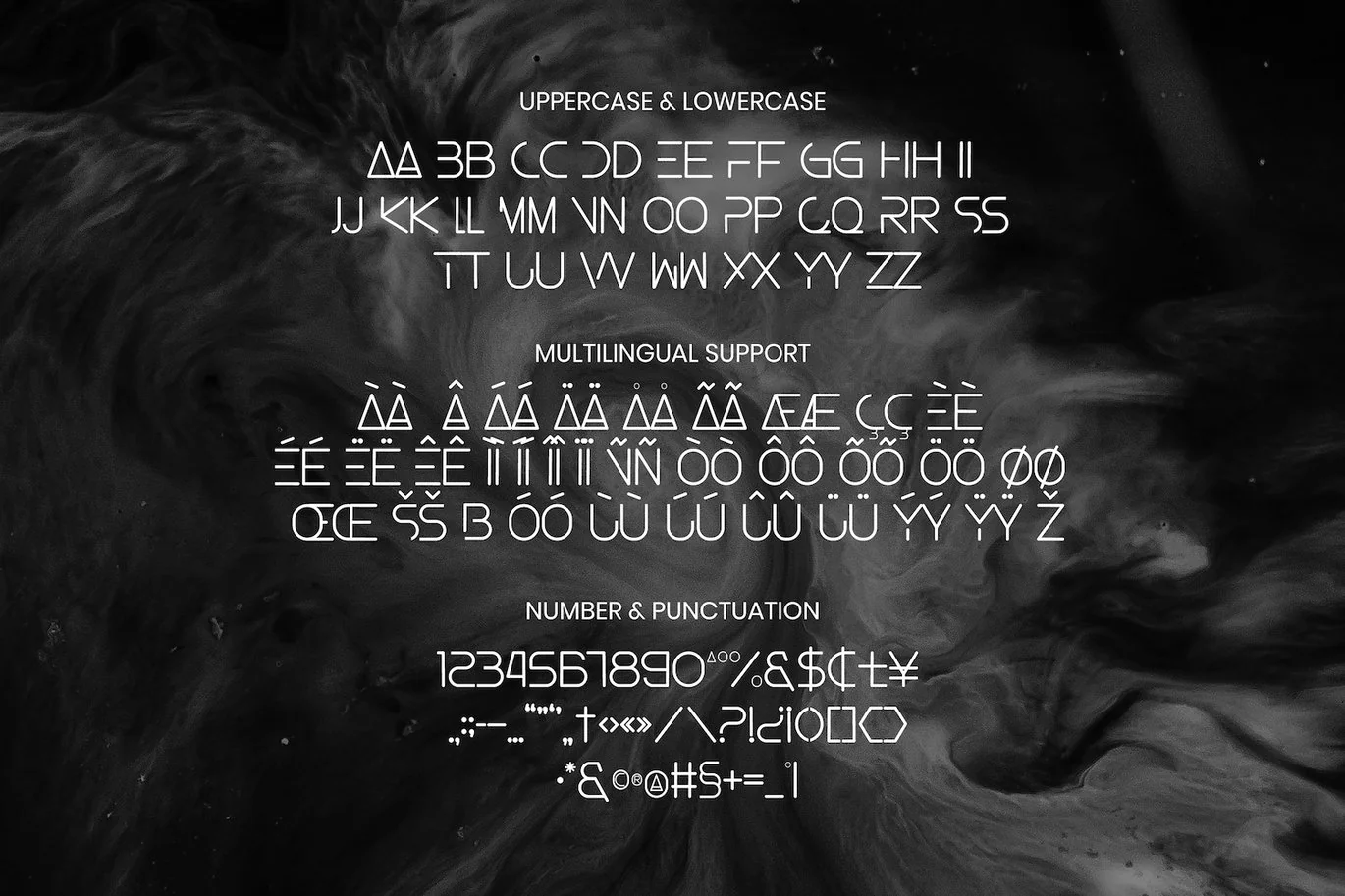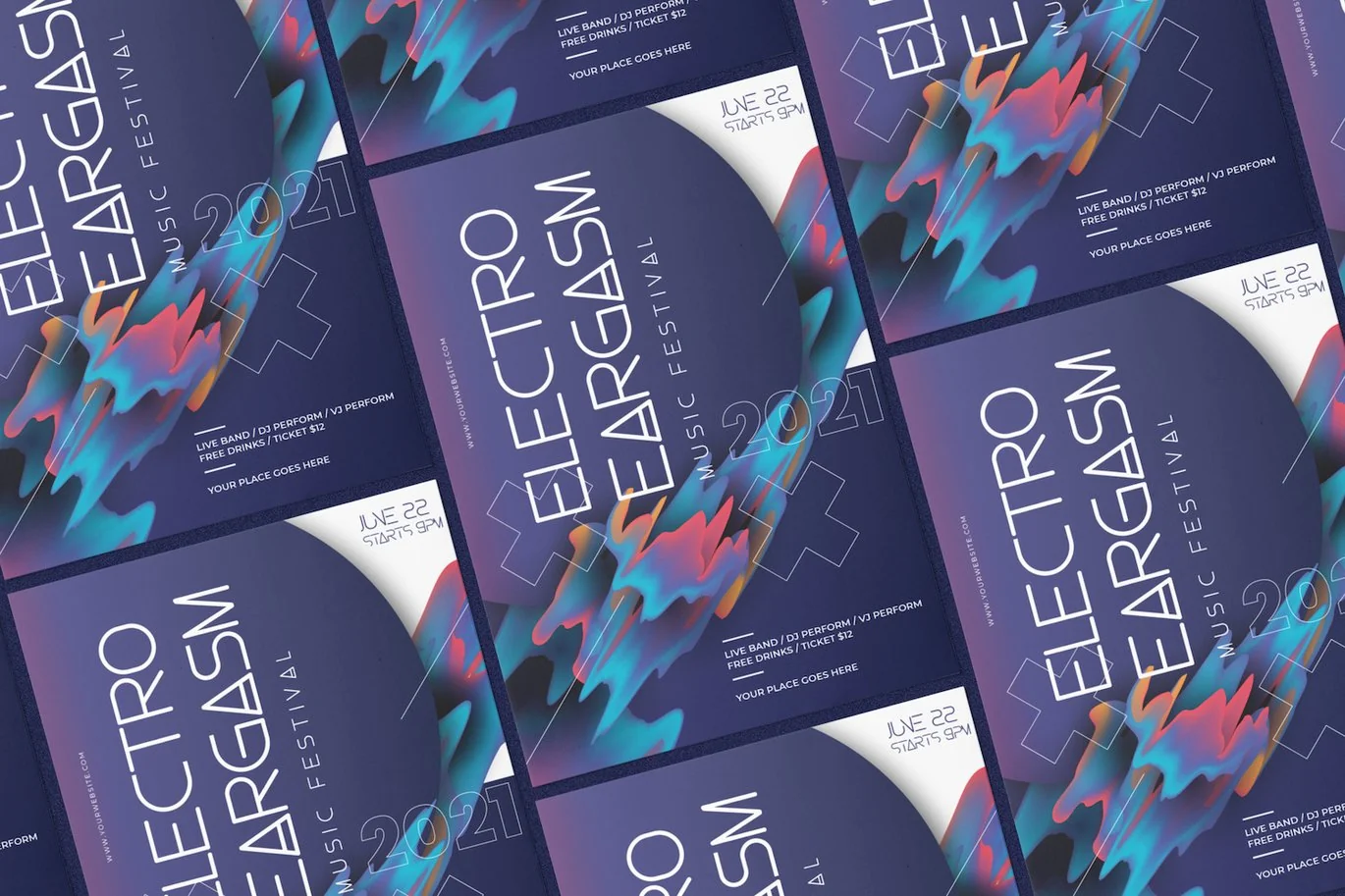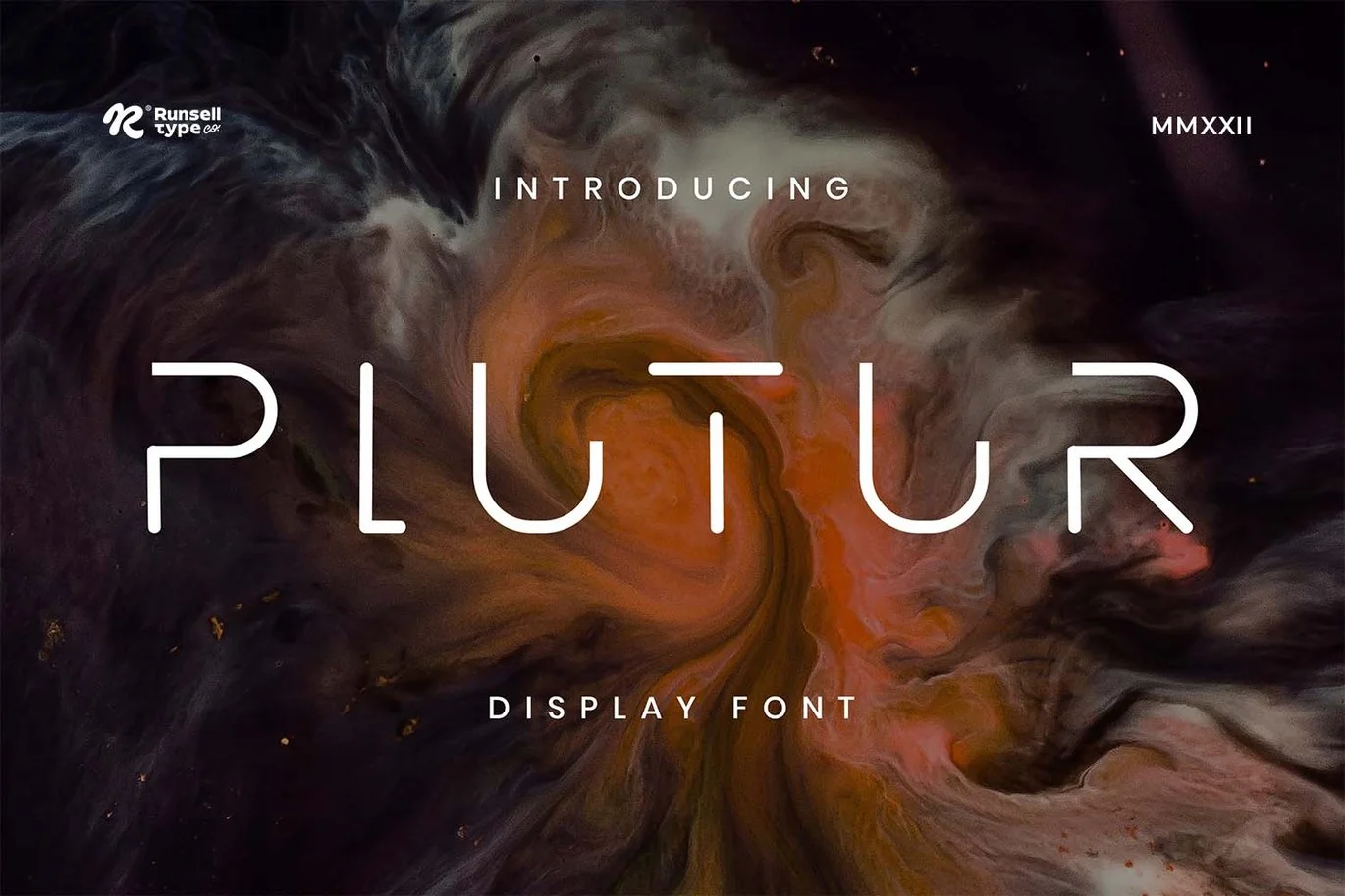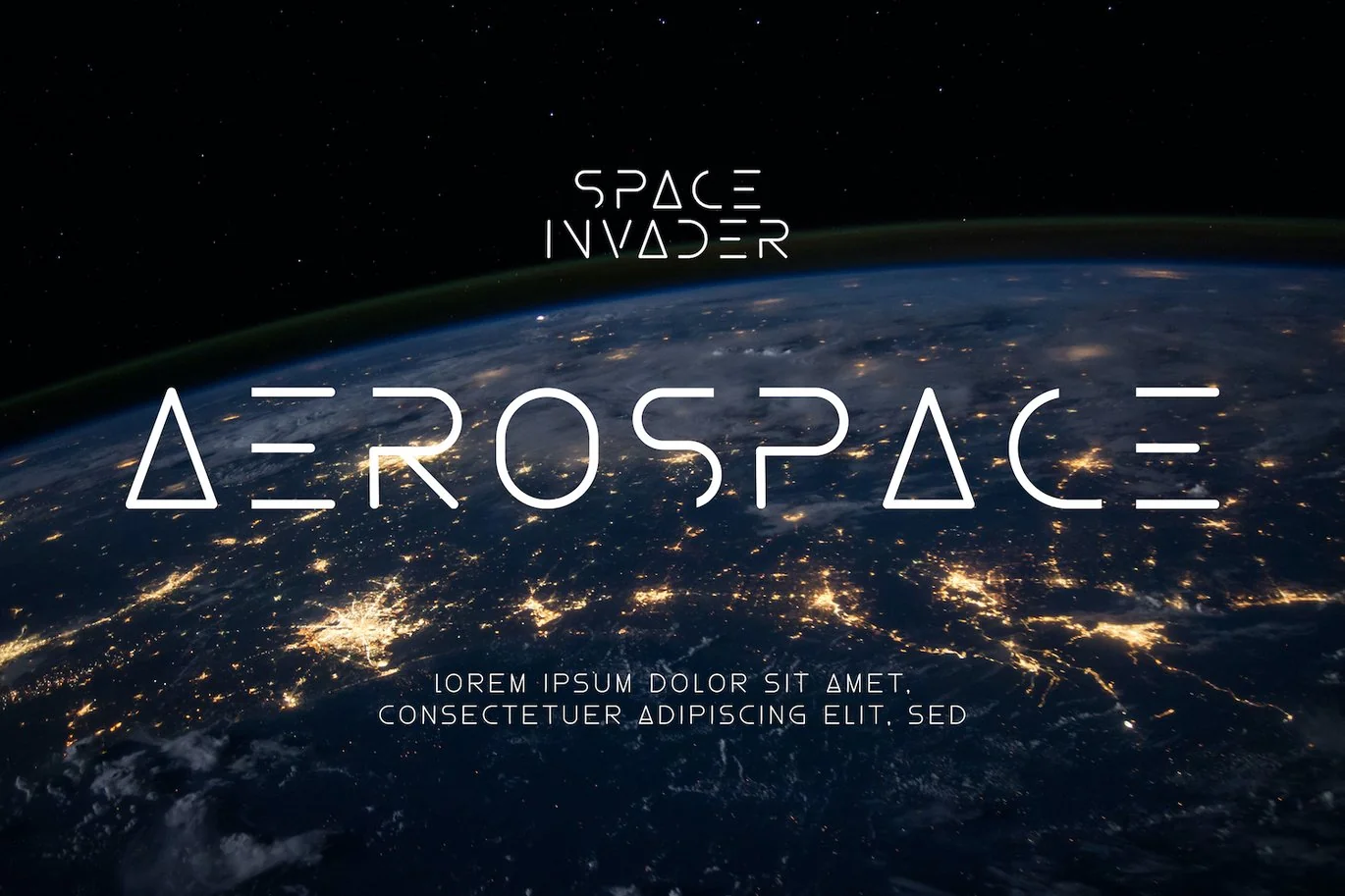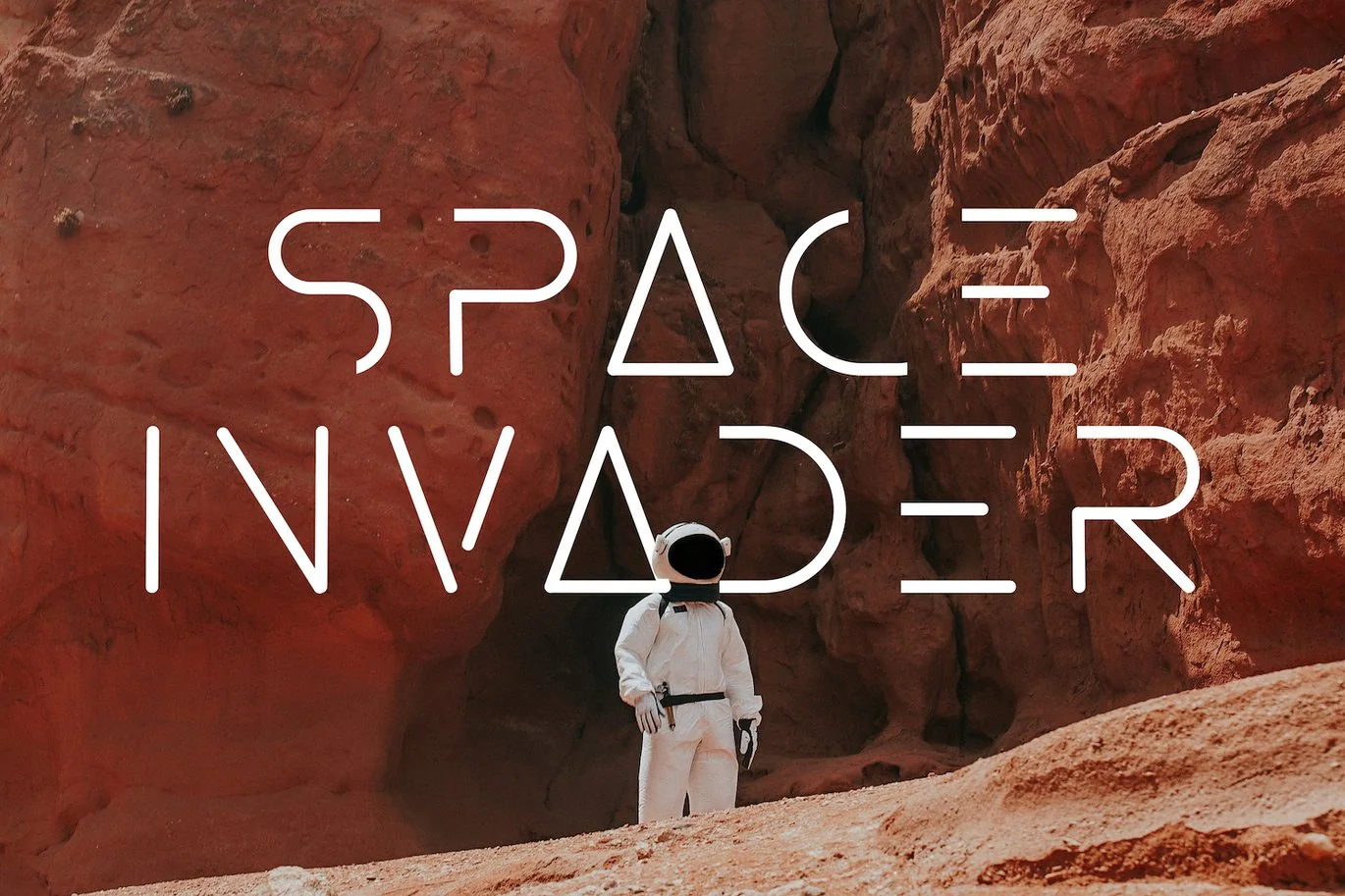
Plutur – Modern Futuristic Font
Presenting Plutur Font is suitable logo, branding, book, web, magazine, headline and etc. Our fonts have Uppercase & Lowercase, Numeral & Punctuation, Multilingual support and Opentype Features. For Amazing designs you can mix with other fonts as a complement.